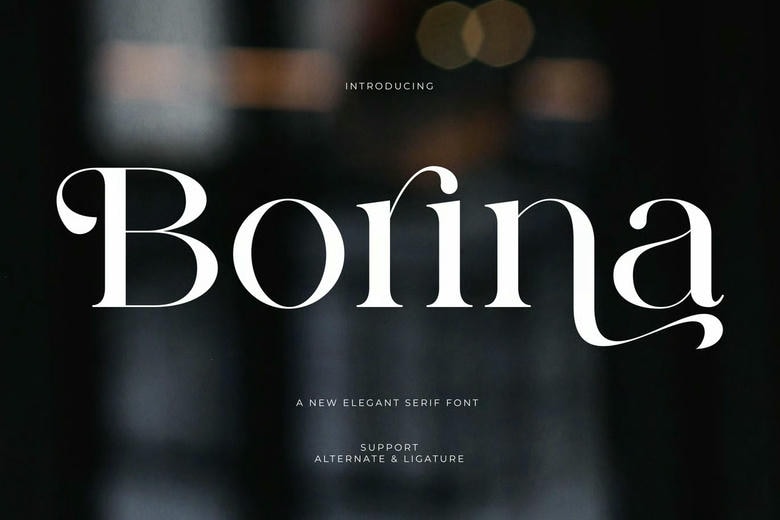
Borina Font
Borina is an elegant, beautiful, and modern serif font. With its modern, minimalist look, Borina brings a luxurious, chic, and refined style to your projects, such as websites, modern logos, brand identities, social media quotes, wedding stationery, magazines, and more!
Borina features unique and elegant uppercase letters from A to Z and also comes with unique alternatives, making Borina a beautiful font that can be customized for different projects and tasks.
Borina Serif Font